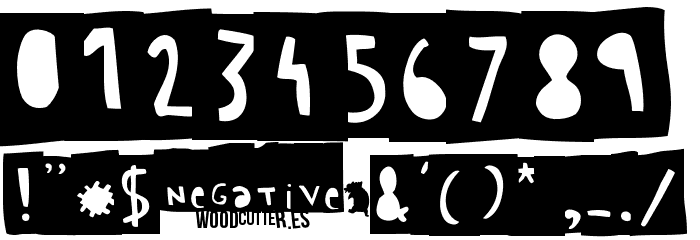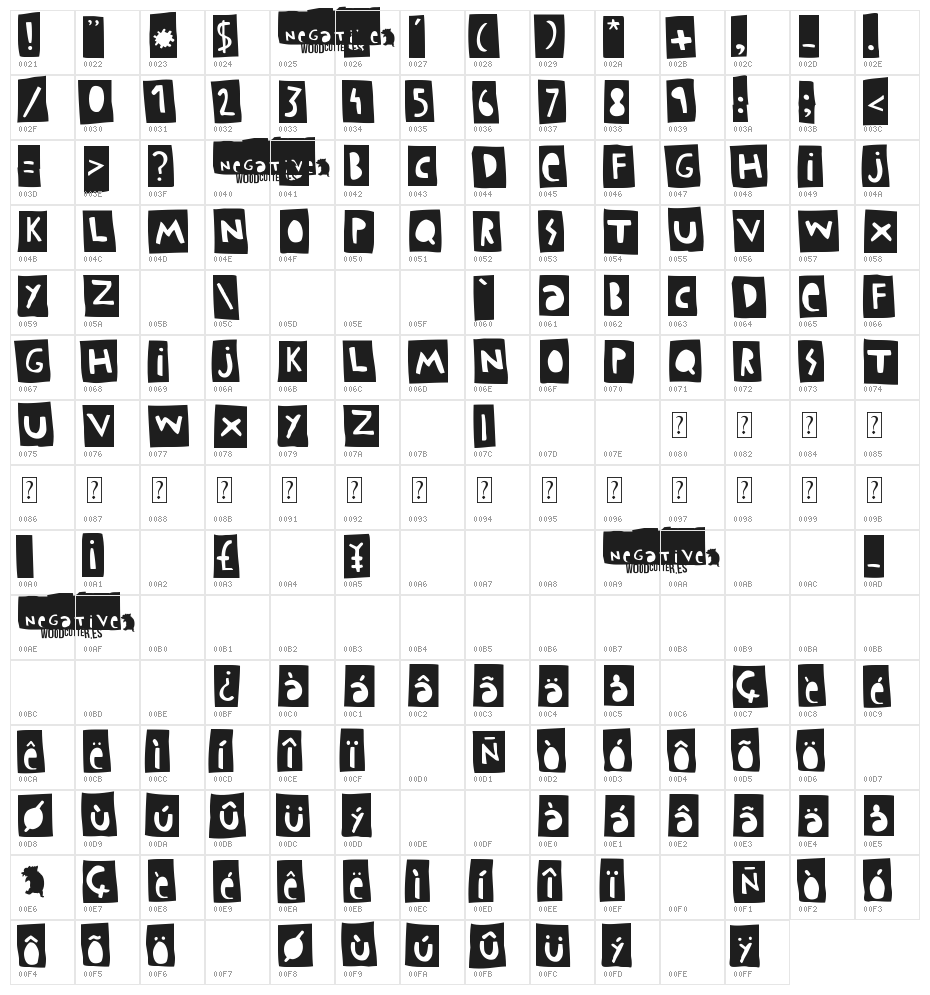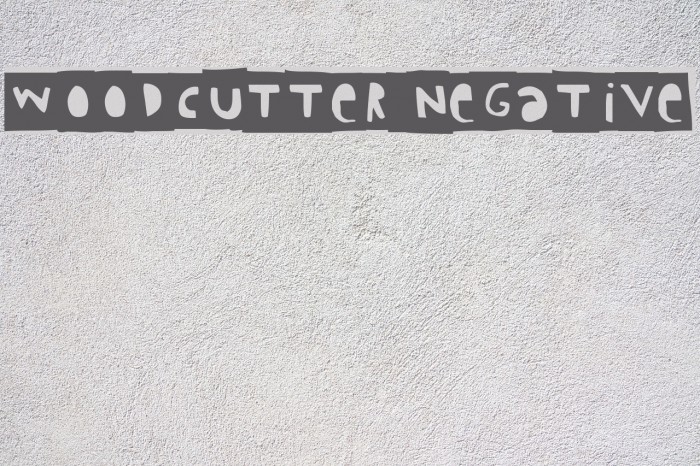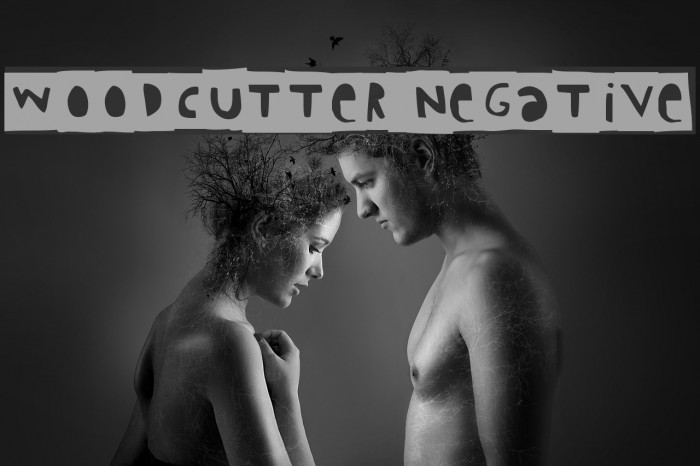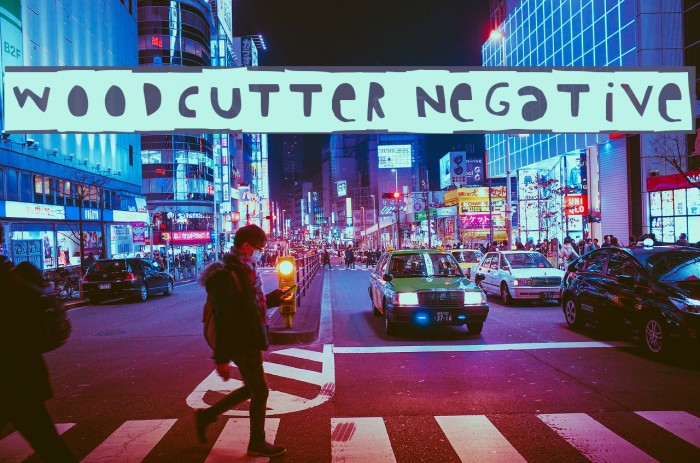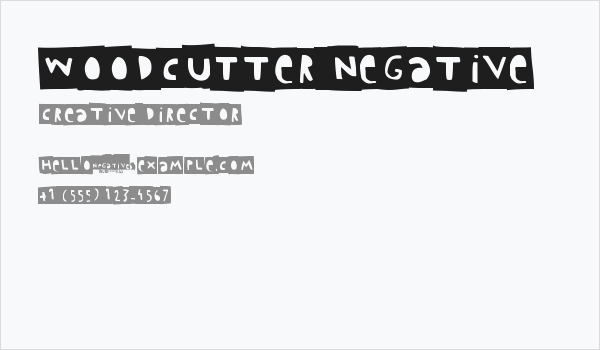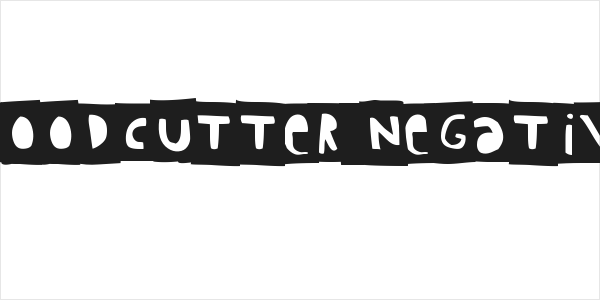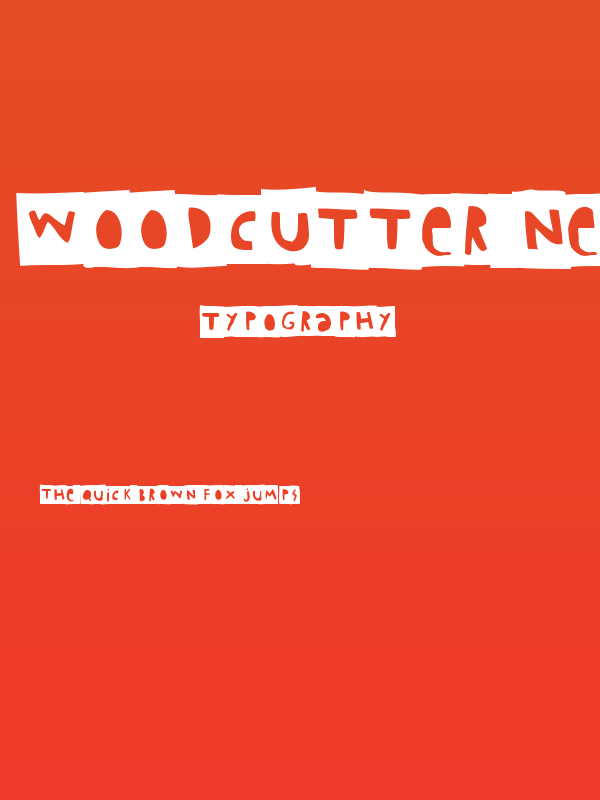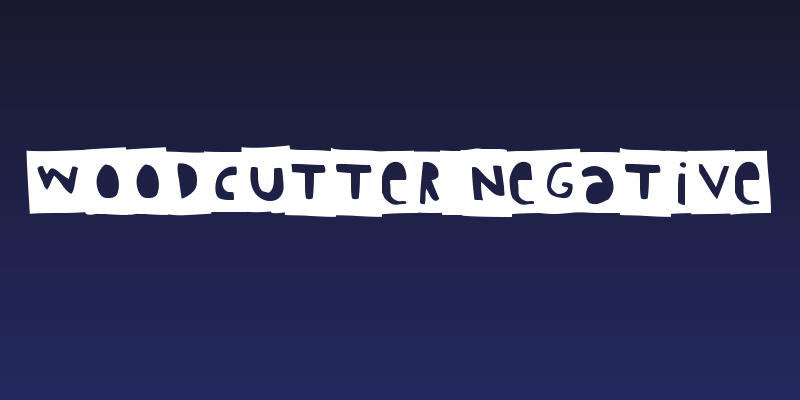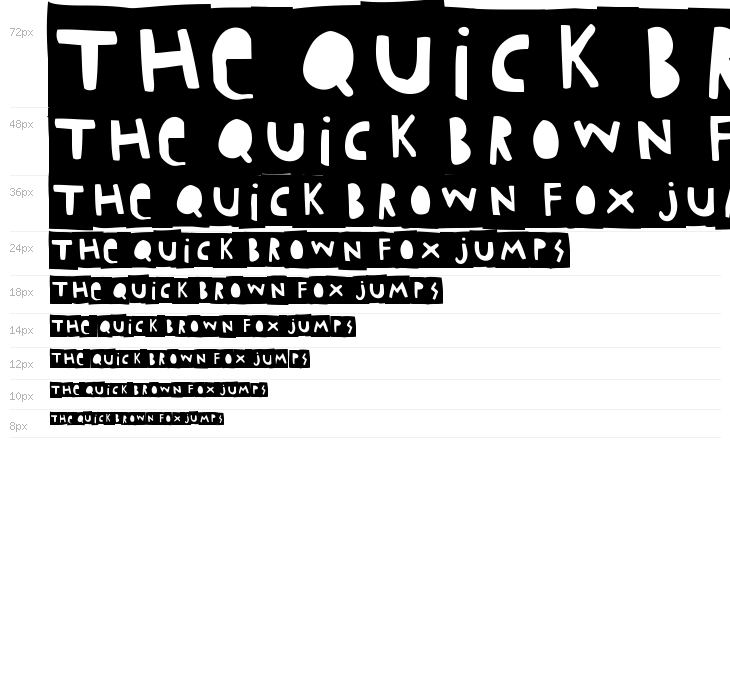
Woodcutter Negative Font
Woodcutter Negative Description
This font features a bold and playful design with a hand-drawn aesthetic. The characters are presented in a negative space style, where the letters are cut out from a solid black background, creating a striking contrast. The uppercase and lowercase letters maintain a consistent style, with quirky and irregular shapes that add a whimsical touch. The numbers and special characters follow the same playful theme, making the font suitable for creative and informal projects. The overall appearance is dynamic and eye-catching, perfect for grabbing attention.
| Overall Style | Playful, Creative |
| Proposed Projects | Ideal for posters, children's books, playful branding, and creative social media graphics. |